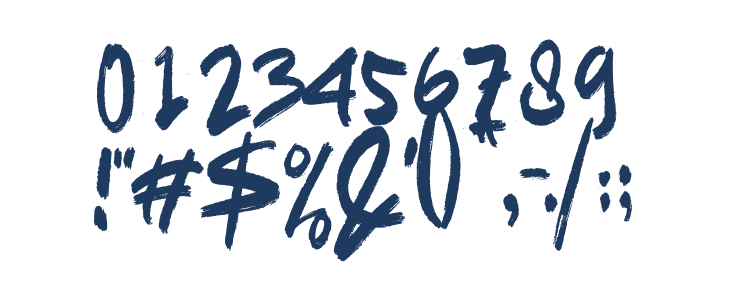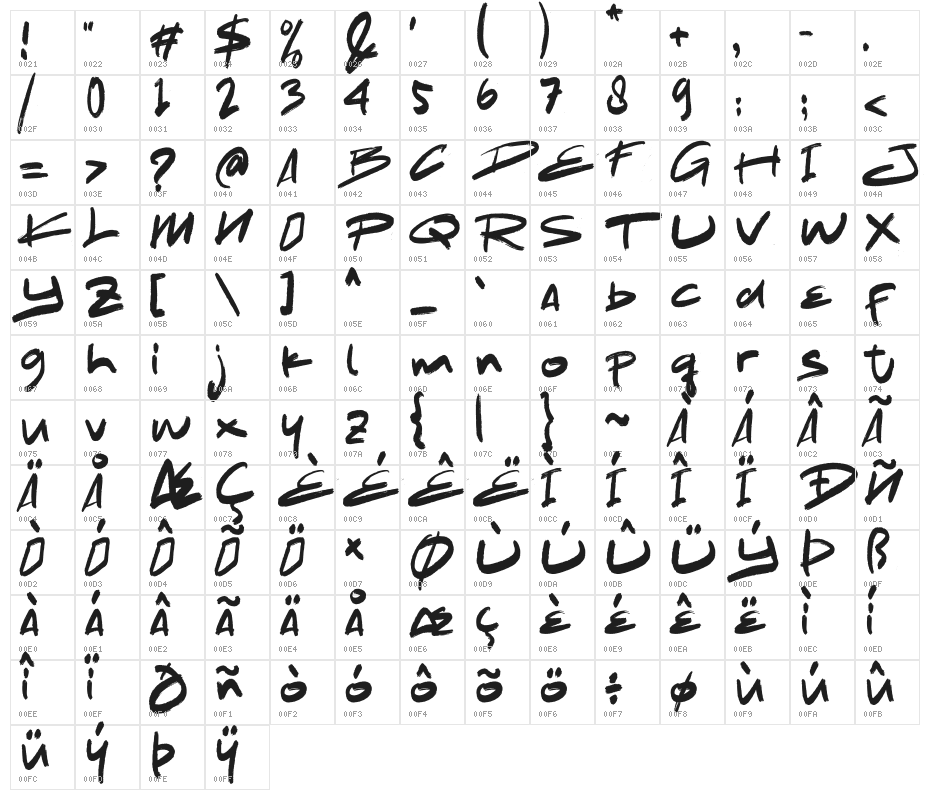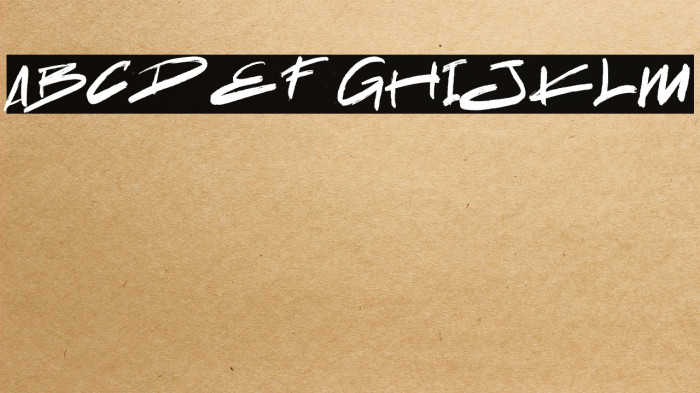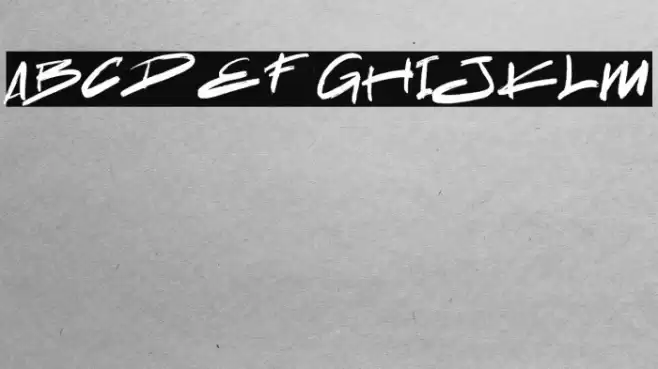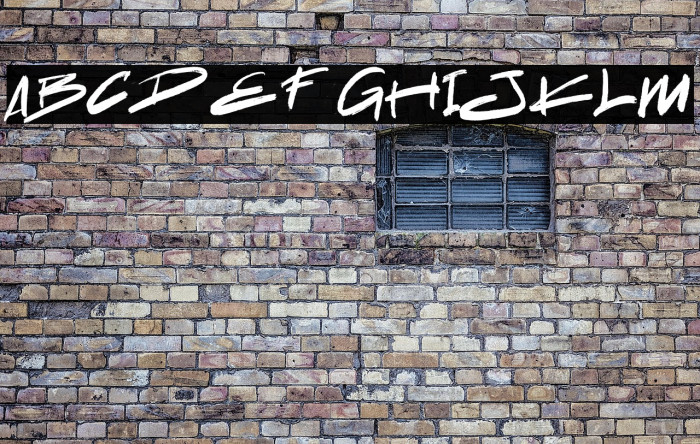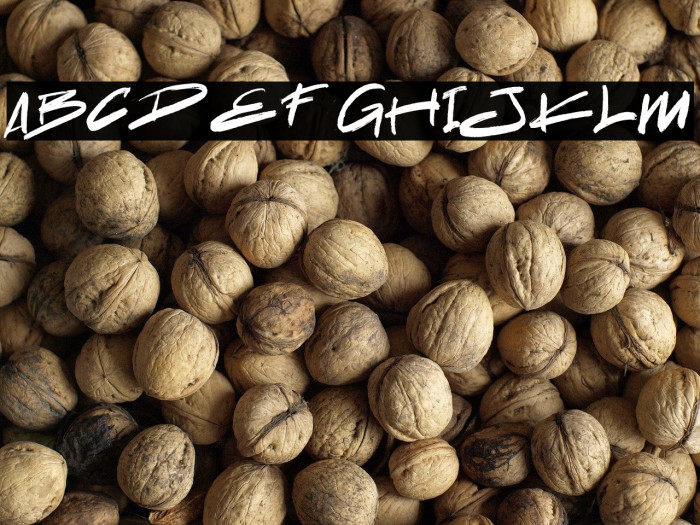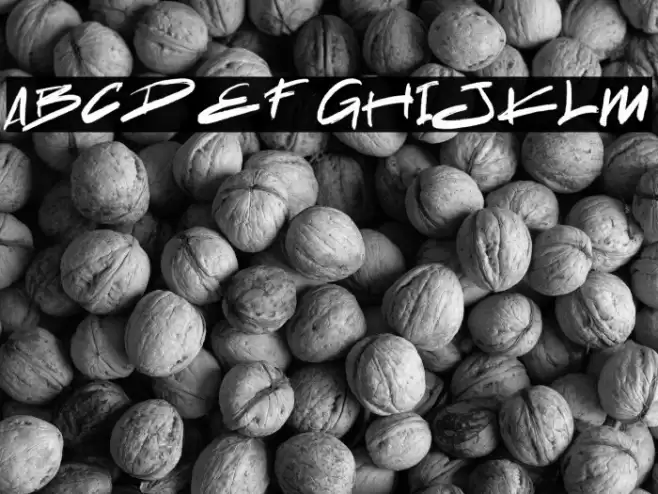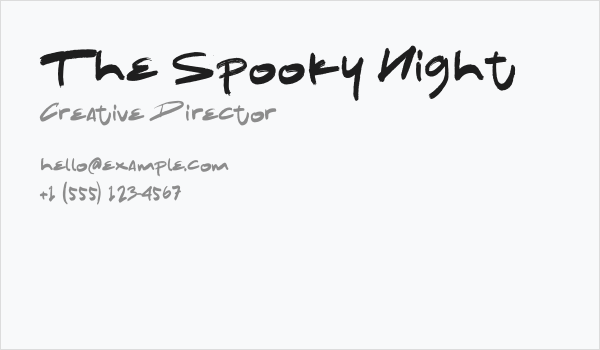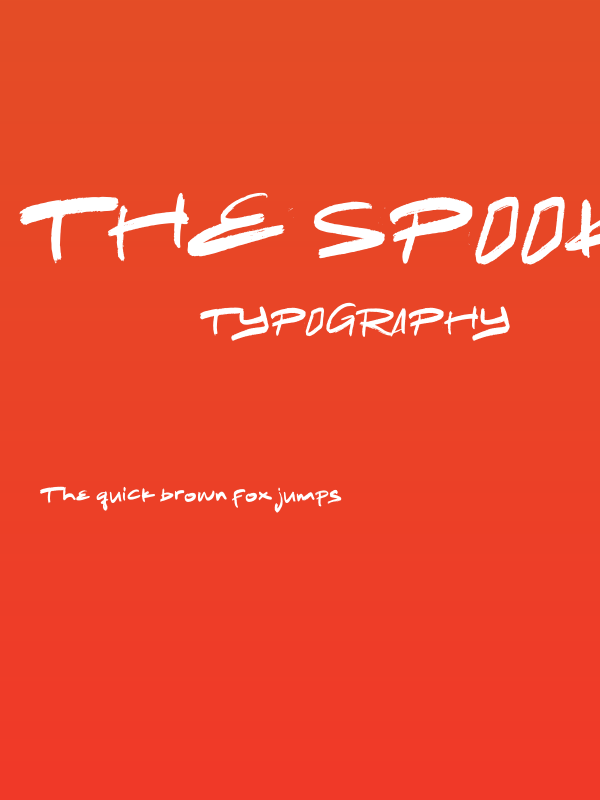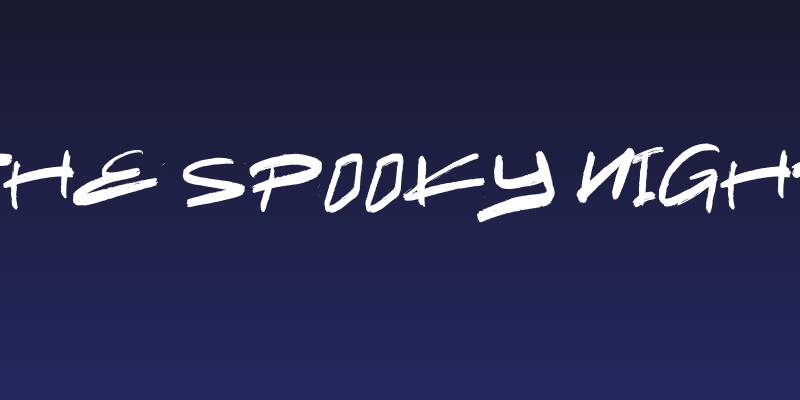
The Spooky Night Font
The Spooky Night Description
This font exudes a bold and expressive style, characterized by its brush-like strokes and dynamic flow. The letters are slightly slanted, giving a sense of movement and energy. The uppercase and lowercase letters maintain a consistent style, with thick, uneven lines that suggest a hand-painted effect. The numbers and special characters follow the same aesthetic, adding to the cohesive look. This font is perfect for projects that require a touch of creativity and spontaneity, such as posters, invitations, or any design that aims to capture attention with its artistic flair.
| Use Case | Headlines, Logos, Artistic designs |
| Proposed Projects | Ideal for posters, invitations, artistic designs, and attention-grabbing headlines. |